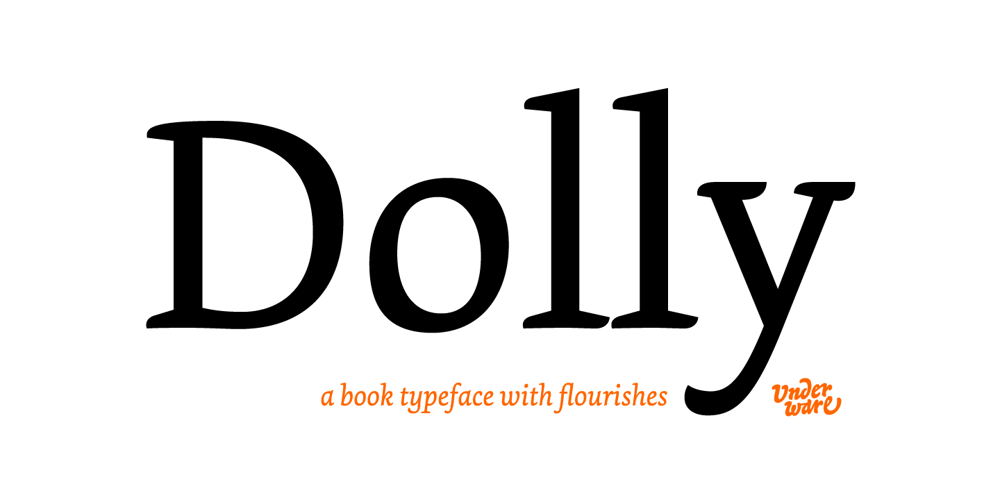
Dolly Pro Font Family was designed by Bas Jacobs, Akiem Helmling, Sami Kortemäki and published by Underware. Dolly Pro contains 4 styles and family package options. Dolly Pro is a book typeface with a flourishing flavour. She’s suitable for classical book type setting as well as for more contemporary magazine designs. The family consists of four fonts: Dolly Regular is neutral and useful for long texts. Dolly Italic is narrower and lighter in colour than the Regular, and so it can be used to emphasize words within Regular text. Dolly Bold is also useful in emphasizing words within Regular text. It also works well as a display type. Dolly Small Caps is intended for setting whole words or strings of characters. With its relatively low contrast, Dolly is perfectly legible in really small sizes. When Dolly is applied in bigger sizes, such as book covers, more crispy details will show up. These four fonts provide a good basis for most of the problems of book typography. Dolly Pro fonts have Underware’s Latin Plus character set, supporting a total of 219 languages.